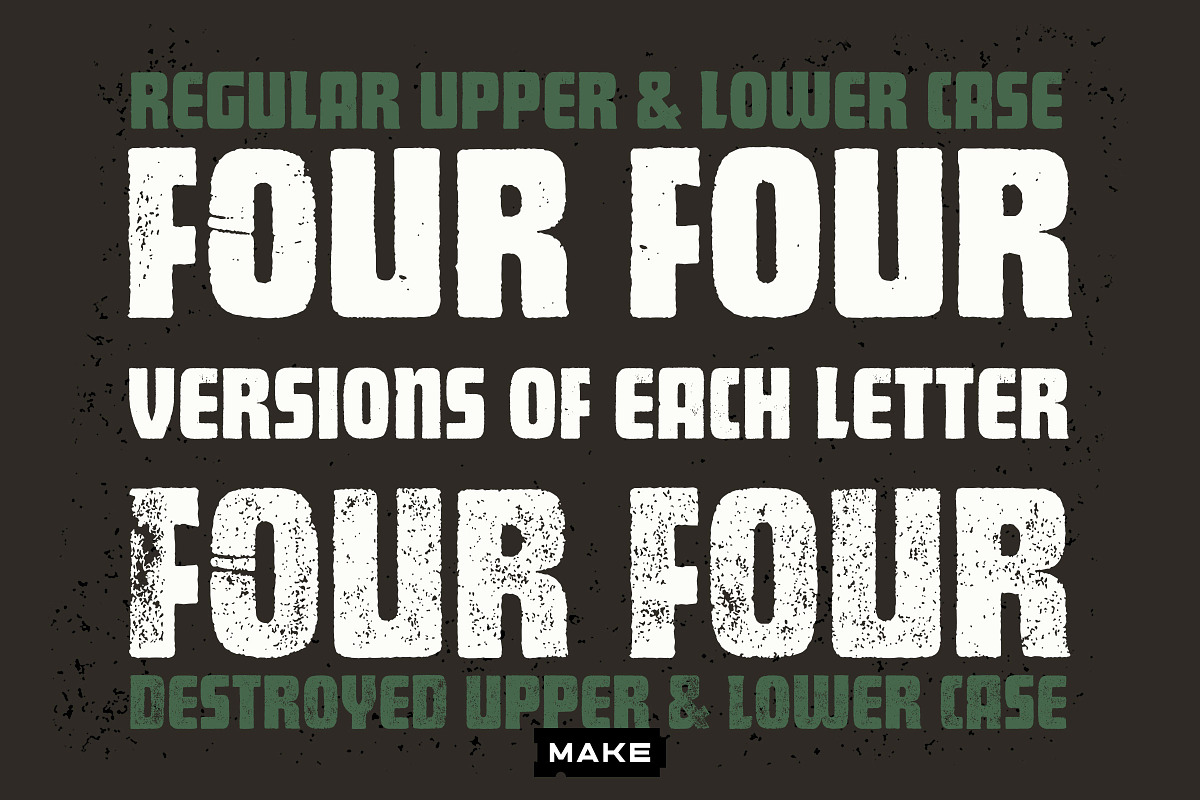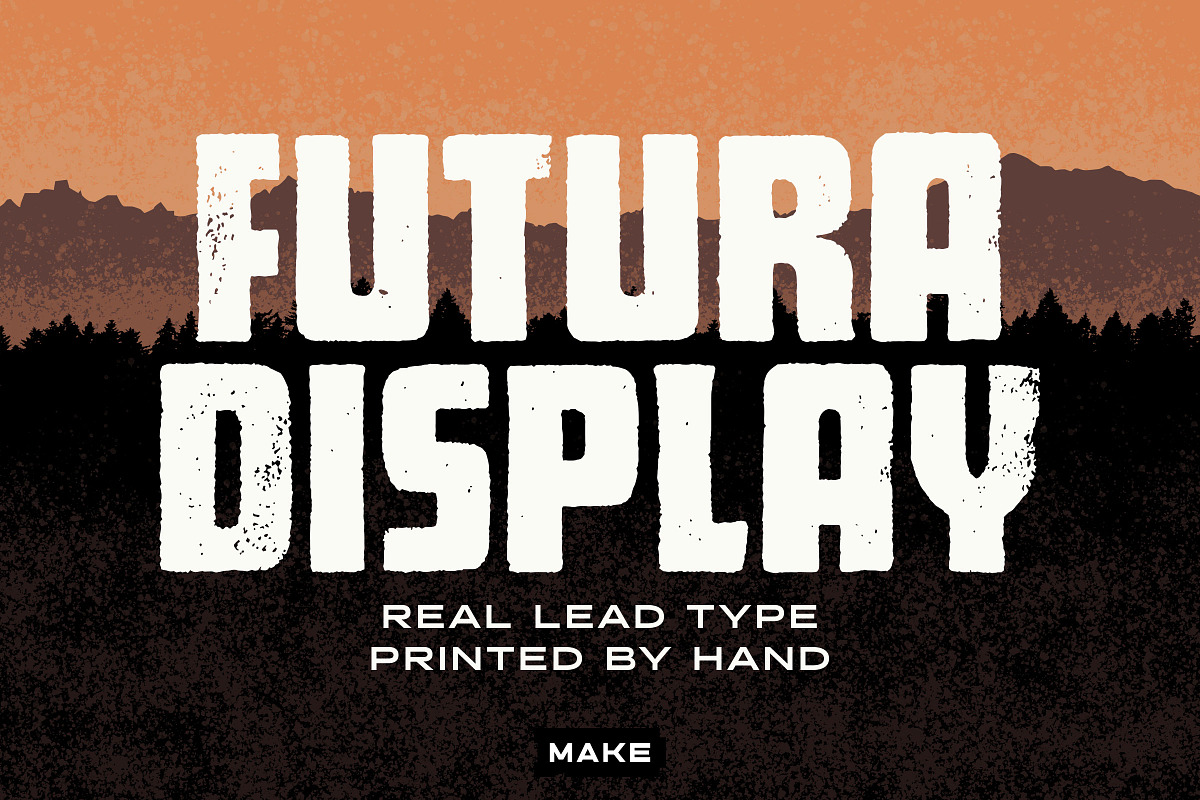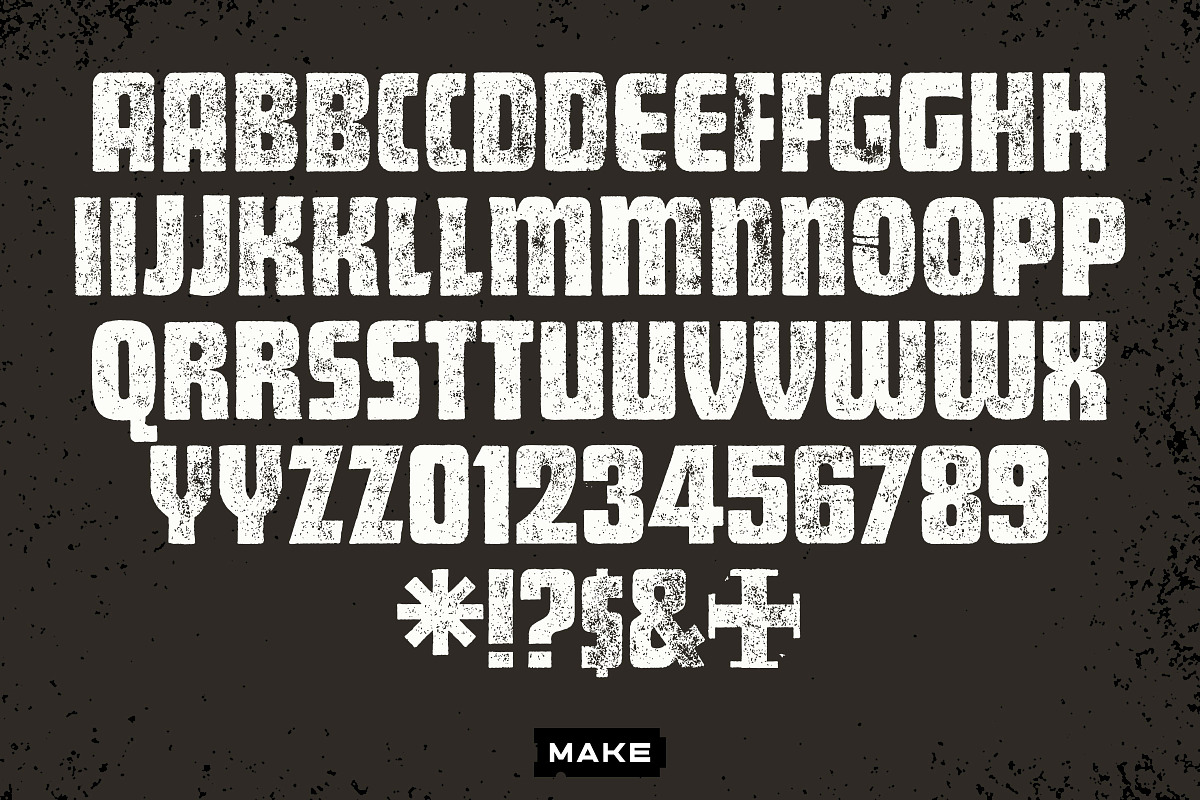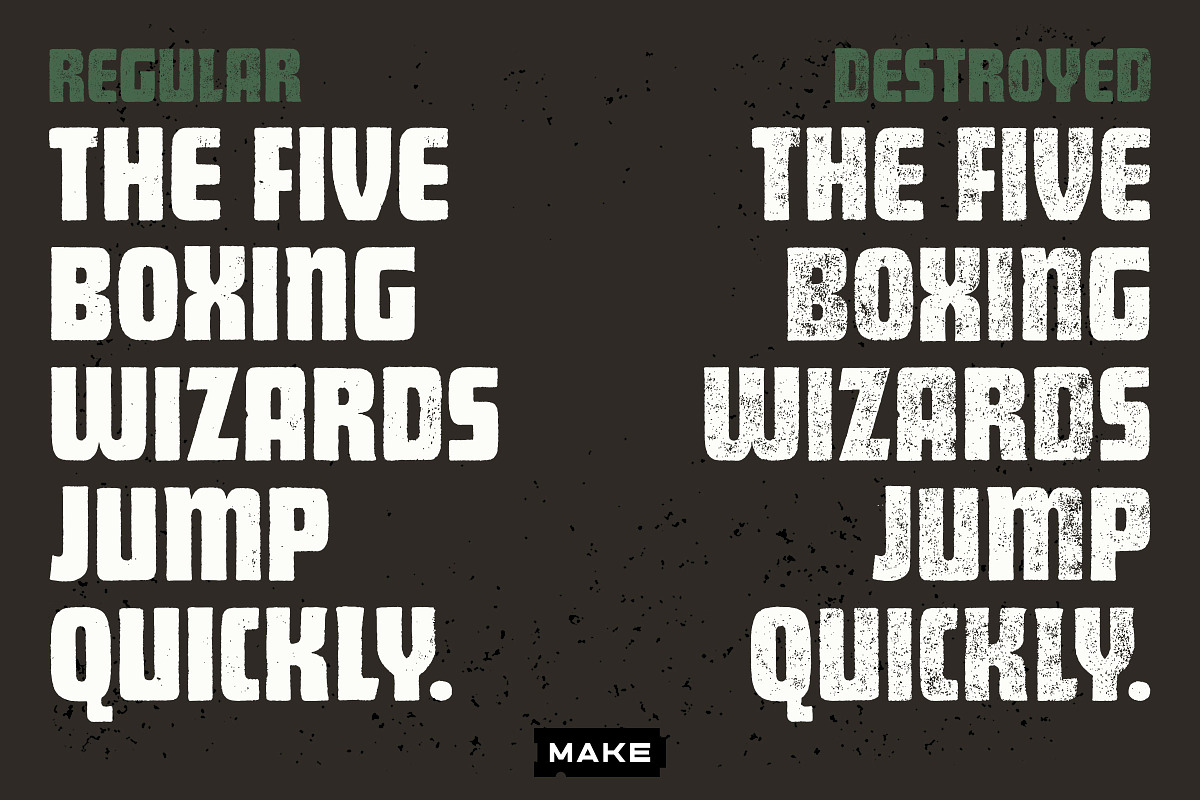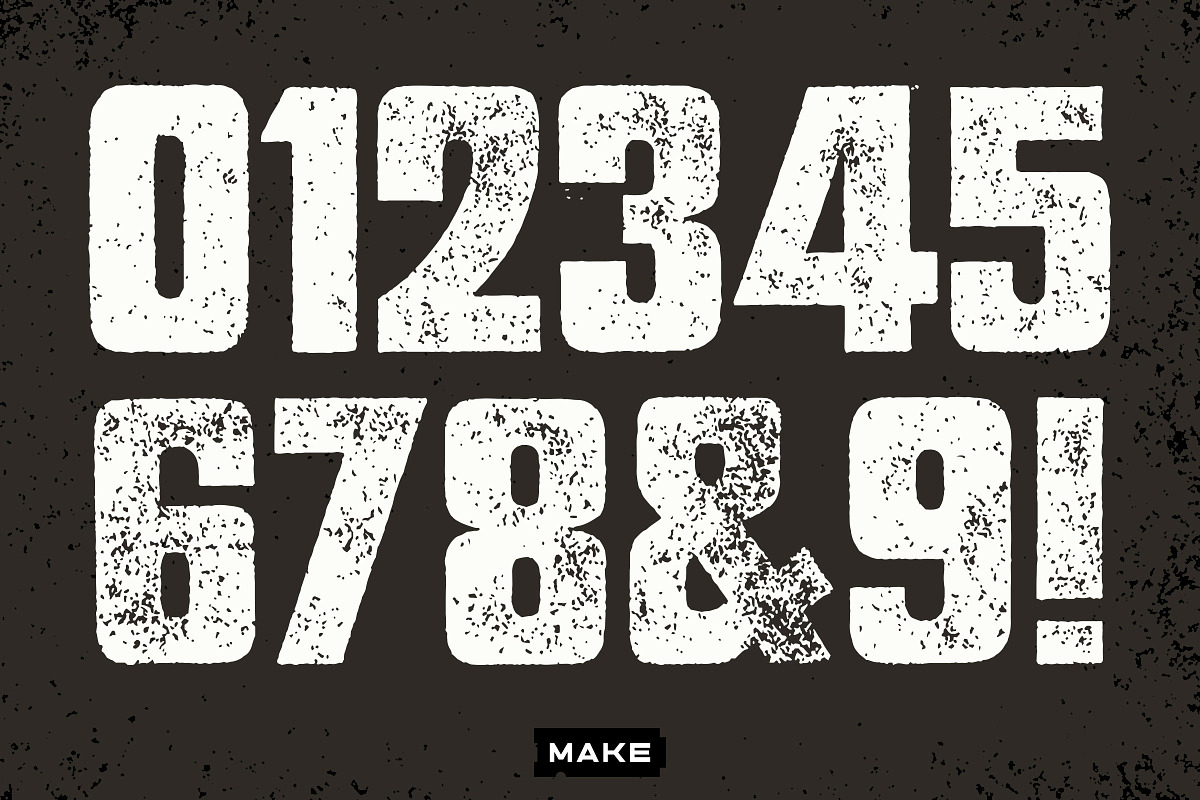
Letterpress Futura Display
Real lead letterpress type, printed, scanned and turned into a digital font.
Letterpress Futura Display is a dusty, decades-old type printed from 48 pt lead type Futura Display. I pulled a single print—black ink on off-white paper—on my flatbed proofing press.
Two faces included: Regular and Destroyed Full upper case letter set with two versions of most letters; limited character set.